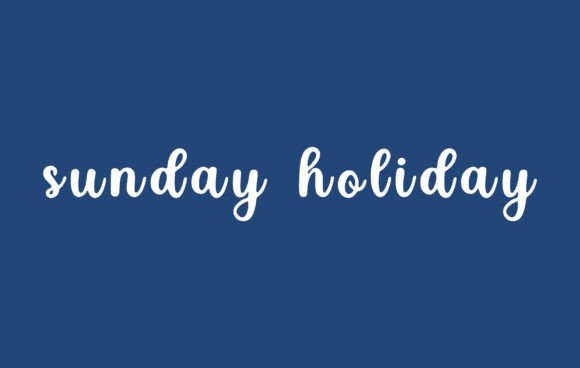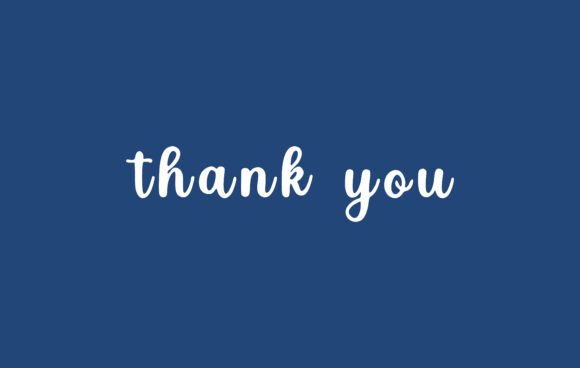
Discover the Charm of Georgina Font: Elevate Your Designs with a Romantic Touch
In the world of typography, a well-crafted font can make all the difference in bringing your creative vision to life. For designers and crafters seeking a unique and authentic handwritten font with a romantic flair, look no further than Georgina Font. This beautifully designed font is poised to become a true favorite among creative enthusiasts, offering a versatile and elegant solution for a wide range of design applications.
The Essence of Georgina Font
Georgina Font is an authentic handwritten font that exudes a romantic touch, perfect for those seeking to add a personal and whimsical feel to their designs. With its expertly crafted letterforms, this font boasts a distinctive character that sets it apart from more traditional typography. Whether you’re working on a magazine headline, social media post, branding project, or wedding invitation, Georgina Font is sure to make a lasting impression.
Key Features of Georgina Font
- Legibility and Versatility: Georgina Font is designed to be highly legible, making it suitable for use as both title and body text. This versatility allows designers to maintain consistency across various design elements, from headings to paragraphs.
- Elegant and Romantic Aesthetic: The font’s handwritten nature gives it a charming, personal feel that is perfect for projects requiring a touch of elegance and romance. Whether it’s for wedding-related designs, luxury branding, or artistic endeavors, Georgina Font delivers.
- Wide Range of Applications: From magazine headlines and social media graphics to branding, wedding invitations, greeting cards, and more, Georgina Font’s adaptability makes it an excellent choice for numerous design projects.
- High-Quality Design: Crafted with attention to detail, Georgina Font ensures that your designs stand out with a professional and polished look.
Applications of Georgina Font
The possibilities are endless when it comes to using Georgina Font in your designs. Here are a few ideas to get you started:
- Wedding and Event Planning: Create stunning wedding invitations, save-the-date cards, and event banners that set the tone for a romantic and memorable occasion.
- Branding and Packaging: Elevate your brand’s visual identity with a font that communicates elegance, sophistication, and a personal touch.
- Social Media and Blogging: Use Georgina Font to create eye-catching social media posts, blog headers, and article titles that engage your audience and enhance your online presence.
- Stationery and Cards: Design beautiful greeting cards, thank-you notes, and personalized stationery that showcase your creativity and thoughtfulness.
Why Choose Georgina Font?
In a sea of digital fonts, Georgina Font stands out for its unique blend of authenticity, elegance, and versatility. By choosing Georgina Font for your design projects, you’re not just selecting a typeface; you’re embracing a creative partner that can help you convey your message with style and emotion.
Whether you’re a professional designer looking to expand your typographic arsenal or a crafter seeking the perfect font for your handmade projects, Georgina Font offers a world of creative possibilities. Its romantic charm, combined with its legibility and adaptability, makes it an invaluable resource for anyone aiming to create visually stunning and emotionally resonant designs.
Georgina Font is more than just a font; it’s a design companion that can help you bring your most imaginative projects to life. With its authentic handwritten feel, romantic aesthetic, and versatile application, it’s poised to become a cherished asset in your design toolkit. Explore the creative potential of Georgina Font today and discover how it can elevate your designs to new heights of elegance and charm.